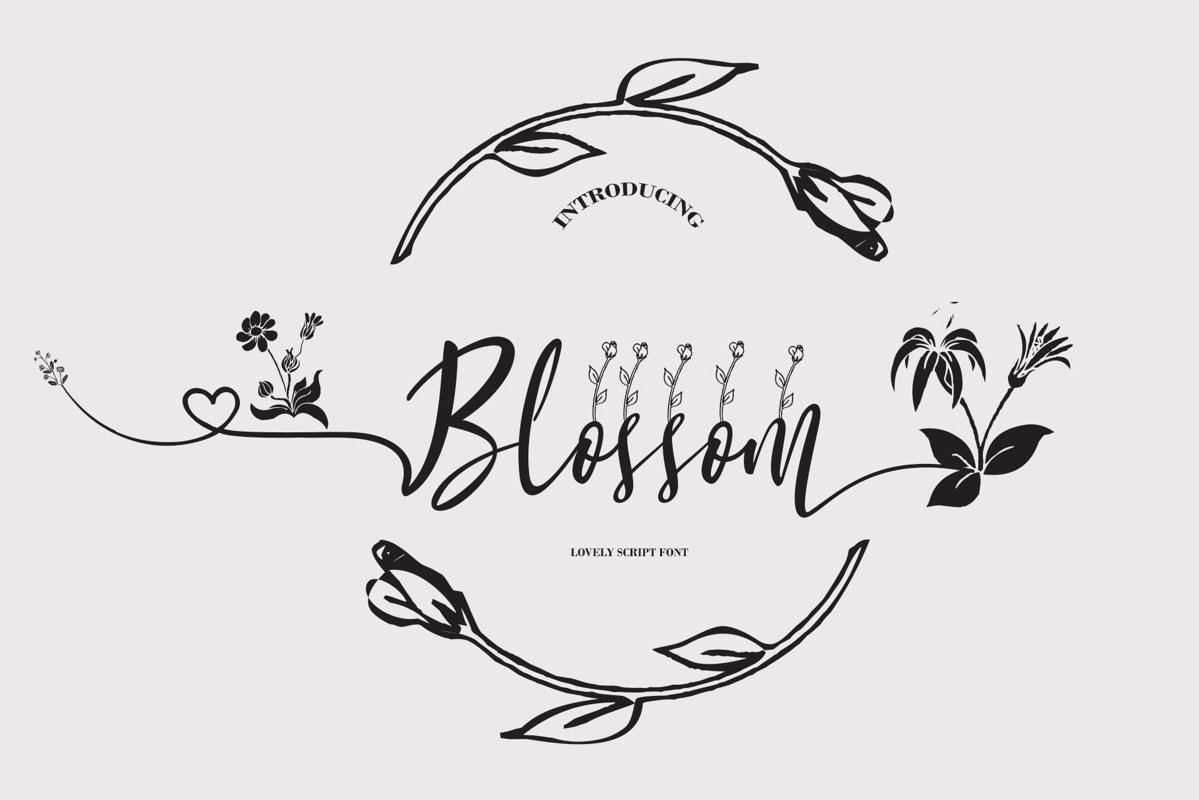
Blossom Script
Introducing: Blossom Script
Script font with smooth handwriting style. Equipped with 431 flying machines. Blossom Script is perfect for branding projects, household design, product packaging, business card usage, invitation cards, etc. Simply put as overlaying style text to any background image or anything that requires elegance sprinkles.